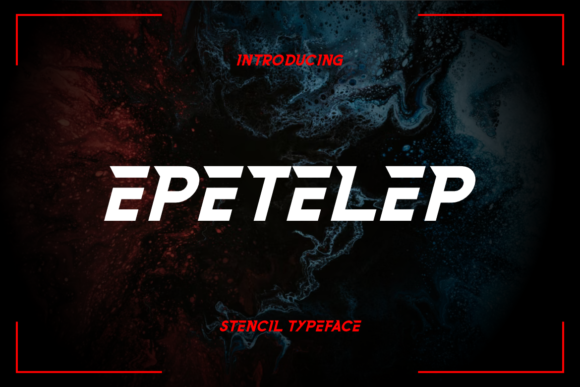
**Epetelep Font: The Font That Embraces the Future of Design**
In the realm of typography, Epetelep Font emerges as a radiant star, illuminating your designs with its bold and modern charisma. This display font, meticulously crafted by the visionary alonkelakon, is not just a collection of letters; it's a gateway to a world where creativity knows no bounds.
Epetelep Font is the embodiment of futuristic elegance, a symphony of sharp angles and flowing curves that dance across your designs with an undeniable allure. Each stroke, each glyph, is a testament to the font's unwavering commitment to innovation and style.
**Unleash Your Vision with Epetelep Font**
With Epetelep Font as your creative ally, you'll find yourself effortlessly crafting:
- **Logos that Command Attention:** Emblazon your brand with a logo that reflects your forward-thinking spirit. Epetelep Font's bold presence will ensure your logo stands out from the crowd, leaving a lasting impression on all who behold it.
- **T-shirts that Make a Statement:** Transform ordinary t-shirts into wearable works of art. Epetelep Font's vibrant character will add a touch of futuristic flair to your designs, making them the envy of all who cross your path.
- **Creative Products that Inspire:** Elevate your creative products to new heights with Epetelep Font's undeniable charm. From packaging to posters, every touchpoint will exude a sense of innovation and modernity.
**Why Choose Epetelep Font?**
- **Futuristic Appeal:** Epetelep Font embraces the aesthetics of the future, providing your designs with an edge that will set you apart from the competition.
- **Bold and Modern:** Its striking angles and flowing curves create a bold and modern look that commands attention and leaves a lasting impression.
- **Versatile Application:** From logos to t-shirts, packaging to posters, Epetelep Font's versatility knows no bounds, making it the perfect choice for any creative endeavor.
- **Designed by Experts:** Created by the renowned alonkelakon, Epetelep Font is a testament to meticulous craftsmanship and an unwavering dedication to excellence.